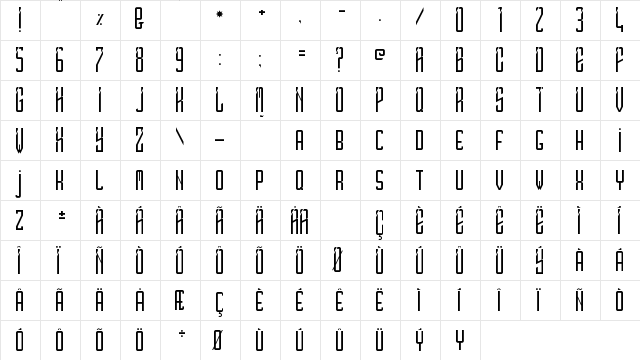
SlimSlashyFerry Regular
| Designer | rikyozone |
Design Context for SlimSlashyFerry Typeface
SlimSlashyFerry is a composed and adaptable typeface that performs quietly and consistently across a wide range of design contexts.